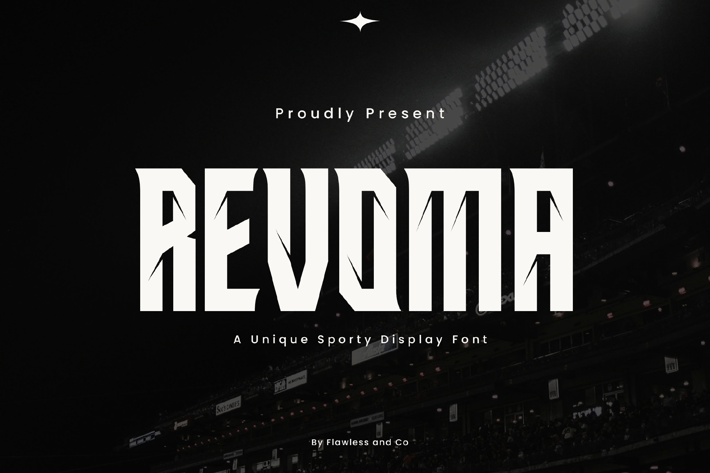
Revoma - Sports Font
Introducing Revoma a sports racing font designed to evoke the thrill and intensity of high-speed racing. With its bold, dynamic letterforms and powerful presence, Revoma is perfect for racing branding, sports events, event promotions, merchandise, and more, ensuring your designs accelerate to the front of the pack.